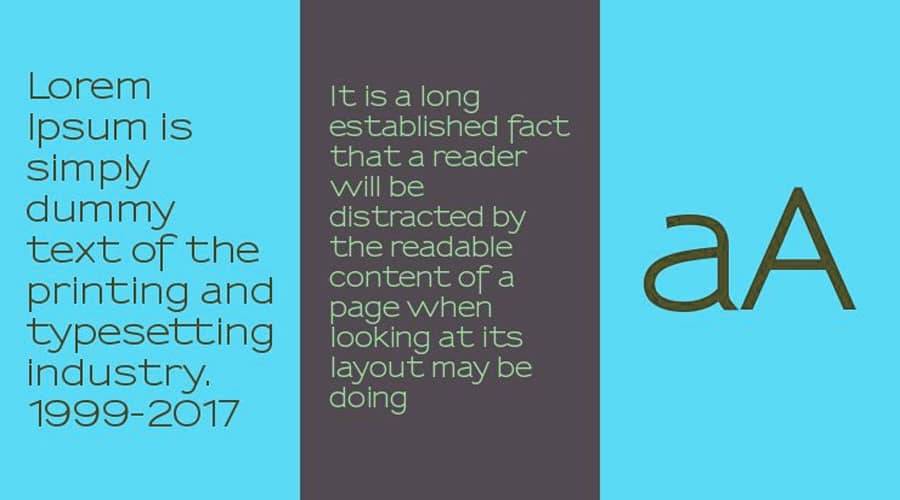
Sansumi font
Presenting the free Sansumi Font! a Sans Serif Font planned and distributed by Manfred Klein fonteria on December 31, 2008.
Sansumi text style was made in a seek after routineness and regular mathematical sans serif typeface, which will be difficult to get by its peruser, wide utilization probability, shown a basic, intense and solid personality. It can undoubtedly be coordinated to an unbelievably enormous arrangement of activities, so add it to your inventive thoughts and notice how it makes them stand out! This textual style is free for individual use. The Font is available in TTF and OTF file type. The beautiful sans serif font can instantly make any work look different and Standard among the pear projects.
Sansumi font style is reasonable for highlights, pennants, stamping, packaging, presentations, logo, titles, magazines headings, web designs, publicizing, sales, packaging arrangement, books, and practically any creative project.